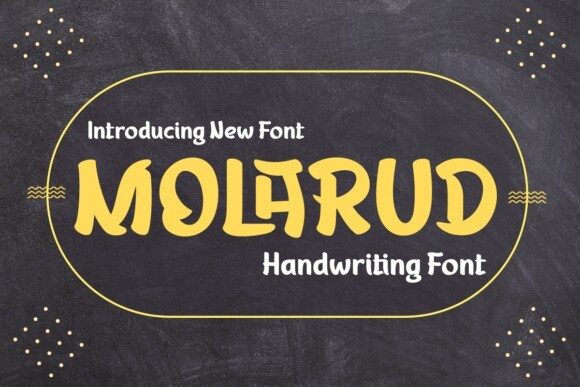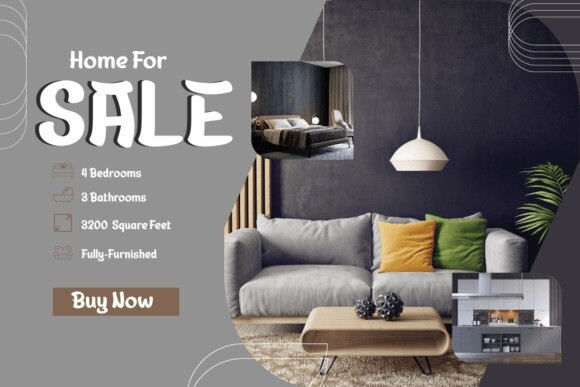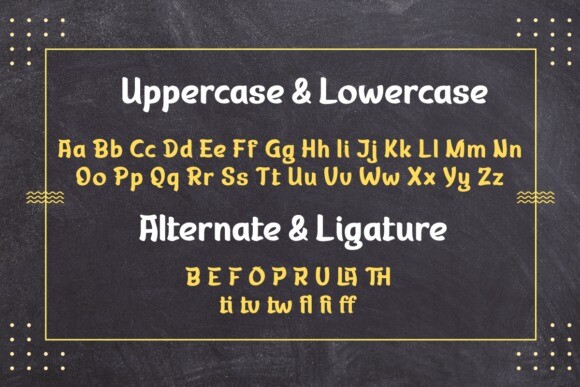
Molarud Font
MOLARUD Font – a captivating display typeface that effortlessly captures the authenticity of handwriting1 Elevate your projects with the artistic touch of MOLARUD, a seamless fusion of style and individuality. Meticulously designed, this typeface adds a distinct charm to diverse design projects, from invitations to branding materials. Featuring fluid ligatures and alternate characters, MOLARUD empowers you to craft unique compositions with ease. Language barriers are effortlessly overcome, making this font a versatile choice for global communication. Embrace the creative potential of MOLARUD Font and revolutionize your designs with the grace of handwritten artistry. Explore MOLARUD today to see your creative visions come to life!